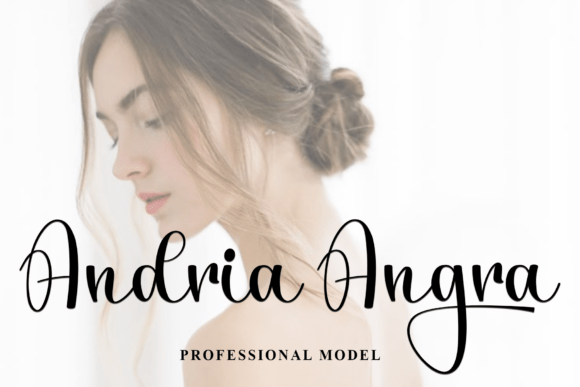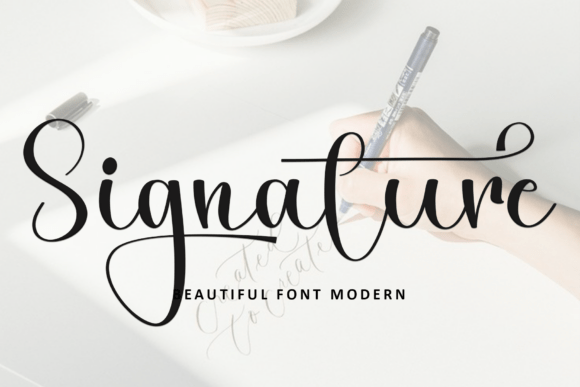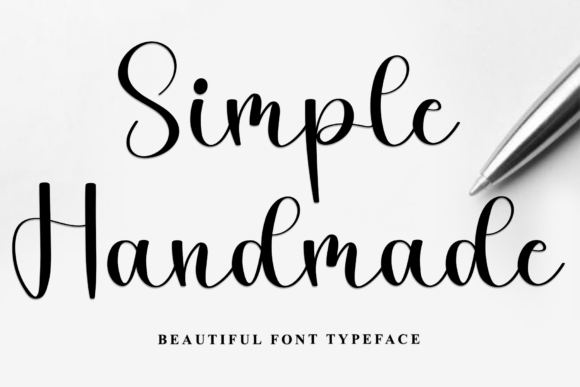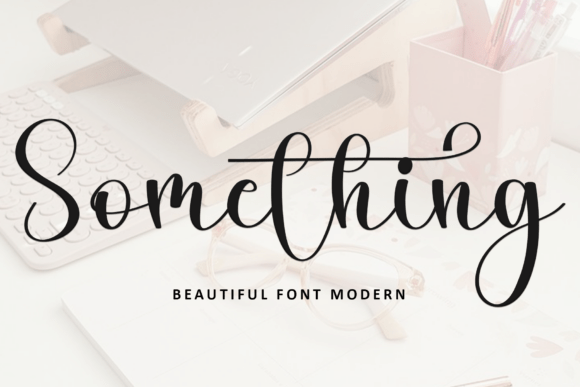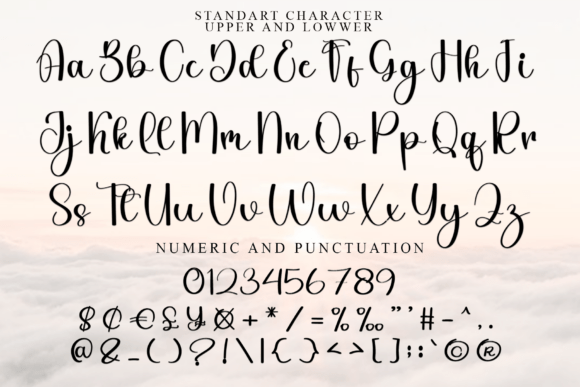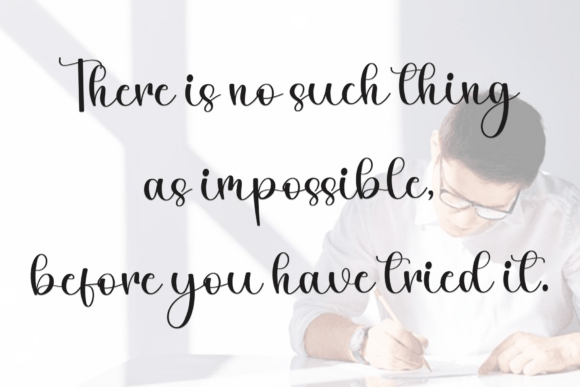
Introducing Autograph Font: The Ultimate Holiday Typeface
The holiday season is upon us, and what better way to get into the spirit than with a festive and merry typeface? Look no further than Autograph Font, a decorative and whimsical font that’s perfect for adding a touch of enchantment to your designs. Whether you’re a designer, crafter, or simply someone who loves the magic of the holiday season, Autograph Font is sure to bring a cheerful and nostalgic ambiance to your words.
What is Autograph Font?
Autograph Font is a beautifully crafted typeface that’s specifically designed to capture the spirit of the holiday season. With its decorative elements and whimsical flair, it’s the perfect addition to any holiday-themed project. From greeting cards and gift tags to festive banners and holiday-themed crafts, Autograph Font is sure to add a touch of magic to your designs.
Key Features of Autograph Font
So what makes Autograph Font so special? Here are just a few of its key features:
- Decorative elements: Autograph Font features a range of decorative elements, including intricate swashes, flourishes, and ligatures. These elements add a touch of whimsy and festivity to your designs, making them perfect for the holiday season.
- PUA encoded: Autograph Font is PUA (Private Use Area) encoded, which means that you can access all of the amazing glyphs and ligatures with ease. This makes it simple to add a touch of magic to your designs, without having to worry about complicated font editing software.
- Whimsical flair: Autograph Font has a distinctly whimsical feel, with a playful and festive vibe that’s perfect for the holiday season. Whether you’re designing a greeting card or a holiday-themed craft, this font is sure to add a touch of personality to your work.
Uses for Autograph Font
So what can you use Autograph Font for? The possibilities are endless! Here are just a few ideas to get you started:
- Greeting cards: Add a touch of festivity to your holiday greeting cards with Autograph Font. Whether you’re designing a Christmas card, a Hanukkah card, or a New Year’s Eve card, this font is sure to make your design stand out.
- Gift tags: Make your gift tags extra special with Autograph Font. This font is perfect for adding a personal touch to your gifts, and is sure to make them stand out under the tree.
- Holiday-themed projects: From festive banners to holiday-themed crafts, Autograph Font is the perfect addition to any holiday-themed project. Whether you’re a designer, crafter, or simply someone who loves the holiday season, this font is sure to add a touch of magic to your work.
Why Choose Autograph Font?
So why choose Autograph Font over other holiday-themed fonts? Here are just a few reasons:
- Unique and distinctive: Autograph Font is a unique and distinctive typeface that’s sure to make your designs stand out. With its decorative elements and whimsical flair, it’s the perfect way to add a touch of personality to your work.
- Easy to use: Autograph Font is PUA encoded, which makes it easy to access all of the amazing glyphs and ligatures. This means that you can focus on designing, rather than getting bogged down in complicated font editing software.
- Perfect for the holiday season: Autograph Font is specifically designed to capture the spirit of the holiday season. With its festive and merry vibe, it’s the perfect addition to any holiday-themed project.
In conclusion, Autograph Font is the ultimate holiday typeface. With its decorative elements, whimsical flair, and PUA encoding, it’s the perfect addition to any holiday-themed project. Whether you’re a designer, crafter, or simply someone who loves the magic of the holiday season, Autograph Font is sure to bring a cheerful and nostalgic ambiance to your words. So why wait? Download Autograph Font today, and let the magic of the holiday season shine through in your designs!